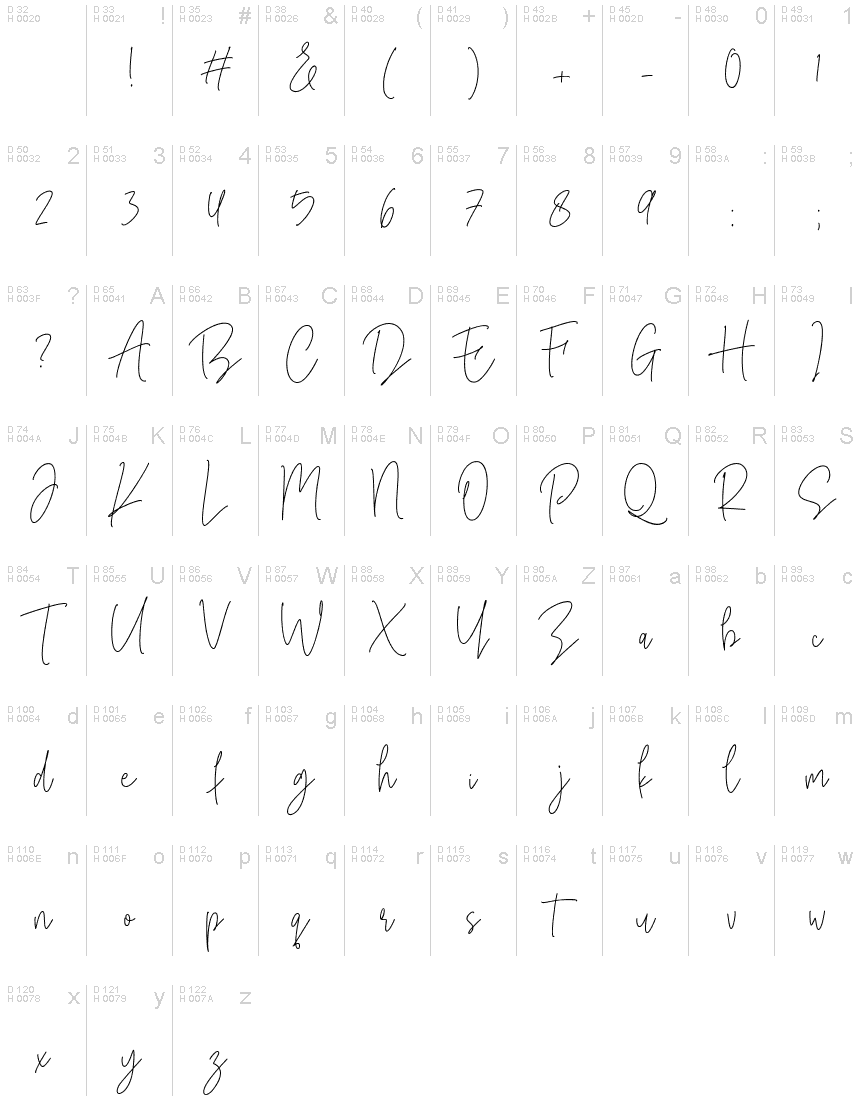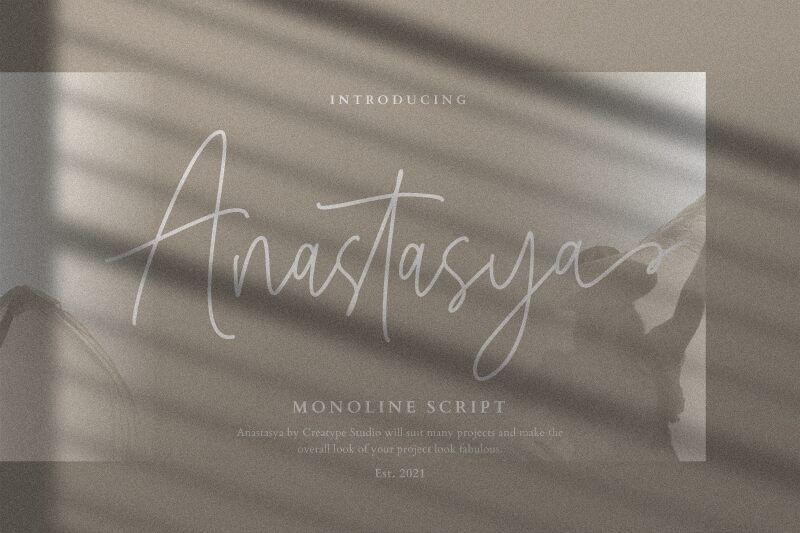
Anastasya Regular
Anastasya, the dazzling monoline script font created by Creatype Studio, boasts a delicate extra-light weight that exudes elegance and sophistication. Perfect for wedding invitations, greeting cards, and other special occasions, Anastasya adds a touch of class to any project. The flowing lines of this font typeface make it ideal for branding projects that require a feminine touch, such as beauty or fashion logos. With its artistic flair and intricate design, Anastasya is also well-suited to use in art prints or posters. Embrace the charm of this enchanting font by adding it to your next creative project!